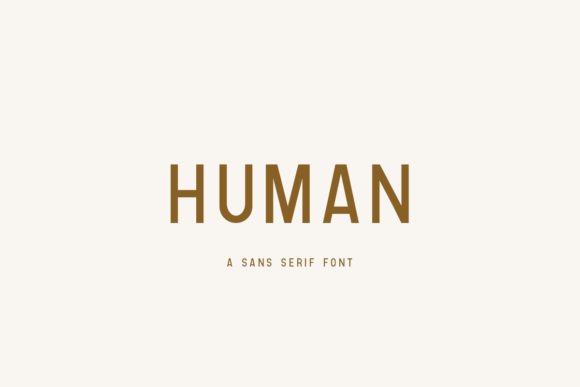
Human Font Download Premium Font: In the world of typography, clarity and simplicity often create the biggest impact. The Human Font is one of those typefaces that doesn’t scream for attention—but gets noticed anyway. With its clean lines, balanced structure, and versatile appearance, Human is a sans serif font that works flawlessly across both digital and print mediums.
Whether you’re designing a user interface, crafting a brand logo, or working on an editorial layout, Human brings modern functionality with a timeless feel. Let’s explore what makes Human font stand out, where you can download it for free, and how you can use it effectively in your projects.
What Is the Human Font?
Human is a neat, minimalist sans serif font with soft curves and consistent geometry. It avoids unnecessary flourish and focuses on being legible, modern, and unobtrusive. Its design is rooted in the principle that typography should support content rather than overpower it. This philosophy makes Human a popular choice for:
Branding & logos
UI/UX design
Editorial layouts
Corporate materials
Presentations
Posters and banners
Because of its balanced design and highly readable form, it fits effortlessly into both professional and creative spaces.
Why Choose Human Font for Your Projects?
If you’re wondering why so many designers gravitate toward the Human font, here’s what sets it apart:
✅ 1. Clean & Professional Aesthetic
Human doesn’t rely on decorative elements. Its strength lies in minimalism. That’s why it’s ideal for clean brand identities, product packaging, and editorial work where text clarity is crucial.
✅ 2. Legibility Across All Sizes
Whether you’re using Human for large display text or small body copy, the font remains easy to read. This makes it ideal for websites, app interfaces, and even printed manuals.
✅ 3. Modern but Neutral
Unlike quirky or stylized typefaces that may go out of fashion, Human is designed to be timeless. It conveys a modern look without feeling trendy or overly specific, giving it long-term design relevance.
✅ 4. Lightweight for Web and Mobile
Because of its simple construction, Human font often performs well in digital environments. It’s not bulky, doesn’t slow down website load times, and renders crisply on all screens.
Use Cases: Where Human Font Works Best
While Human is flexible enough for almost any project, here are some design contexts where it really shines:
🔹 User Interfaces (UI/UX):
Human font is ideal for interface design due to its high readability and neutral tone. It’s perfect for menus, buttons, tooltips, and user onboarding screens.
🔹 Corporate Branding:
If you’re designing for a startup, tech company, or financial brand that values clarity, Human offers a professional edge without being too cold or mechanical.
🔹 Posters & Flyers:
Its simplicity ensures the message stays the hero. You can pair Human font with a bold color palette and imagery for a high-impact layout.
🔹 Editorial & Print Layouts:
Magazines, brochures, and reports benefit from Human’s legibility, especially when combining header and paragraph styles.
🔹 Social Media Content:
Need clean, clear captions or quote graphics? Human is great for minimalistic Instagram or LinkedIn posts that feel sharp and modern.
Font Pairing Suggestions with Human
To get the most out of Human, consider pairing it with complementary fonts:
Lora – for friendly, readable body text
Oswald – for bold headings that pair well with Human’s lighter weight
Roboto – for a uniform and sleek interface
Good typography is all about contrast and balance. Human’s simplicity lets other fonts shine without sacrificing visual harmony.
Similar Fonts to Human
If you’re exploring fonts similar to Human for variety or stylistic tweaks, consider:
Final Thoughts: Keep It Human, Keep It Simple
In a noisy digital world, sometimes the quietest voices carry the most impact. That’s the essence of Human font—clean, understated, and timeless. Whether you’re designing a cutting-edge app or a classy business card, Human provides the foundation for thoughtful, modern design.